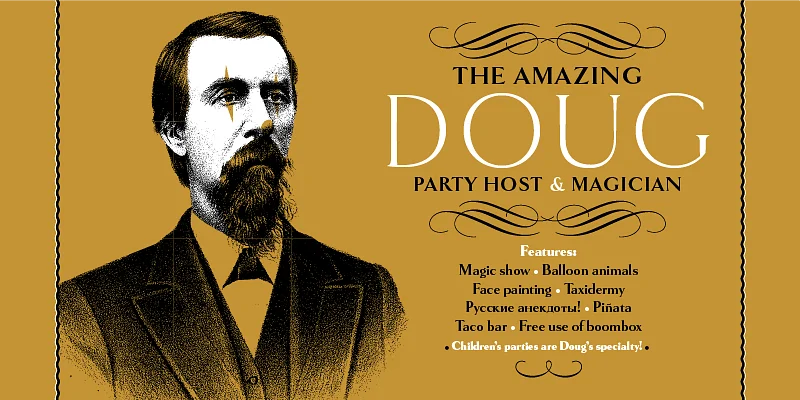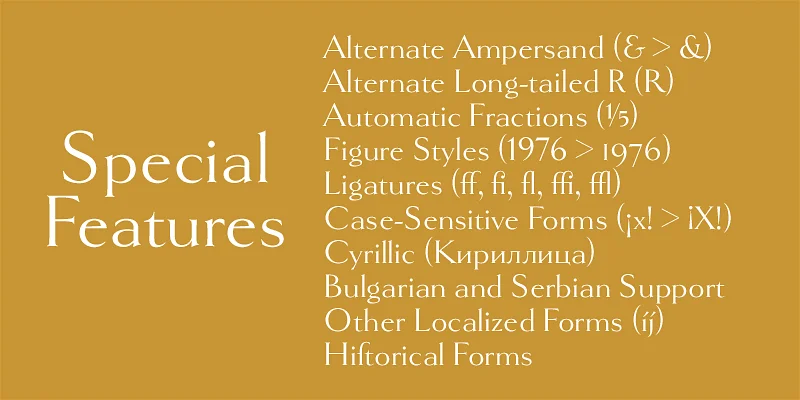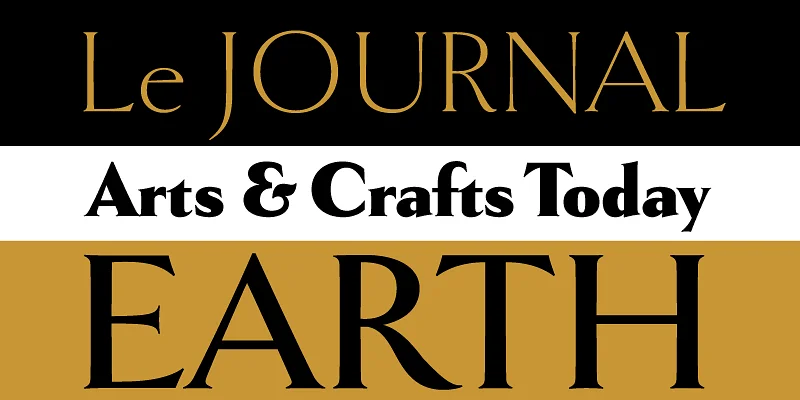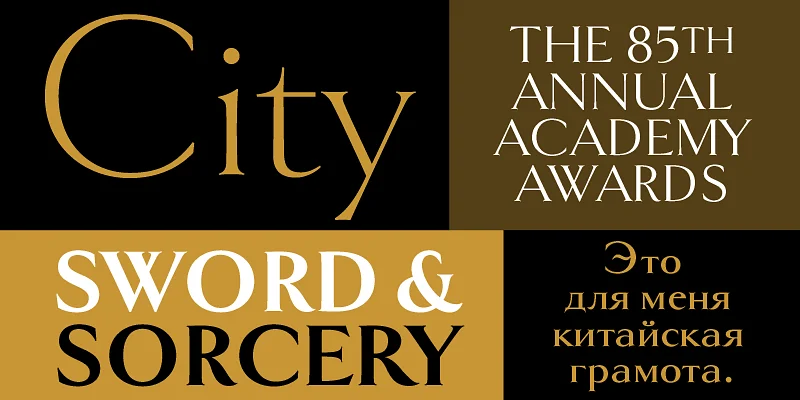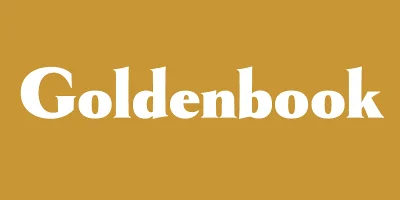
Goldenbook Font
The Goldenbook Font is perfect for luxury publishing projects, prestigious literary collections, golden anniversary celebrations, premium book cover designs, elegant commemorative publications, distinguished memoir layouts, prestigious award ceremonies, upscale literary magazines, exclusive library collections, and treasured family history books.
What makes the Goldenbook Font so exciting is its exquisite fusion of literary elegance with golden luxury that creates the ultimate typeface for precious publications and treasured written works that deserve distinctive presentation. This magnificent typeface features refined letterforms, golden-inspired character proportions, and luxurious design elements that perfectly capture the essence of precious literature and valuable written heritage. The font's golden personality and literary sophistication make it an exceptional choice for premium publishers, luxury brands, and prestigious institutions seeking to communicate literary value, timeless quality, and authentic golden excellence with distinguished visual appeal.
The Goldenbook Font family includes luxury variations and golden alternates, featuring multiple precious weights, literary character options, and golden styling elements. Each variation maintains the signature golden appeal while offering different levels of luxury expression and literary sophistication, giving designers extensive creative possibilities for crafting precious communications and distinguished brand personalities that embody the spirit of golden literary excellence.
This exceptional Goldenbook Font represents the ultimate luxury typography solution for publishers who need authentic golden aesthetics that resonate with literary enthusiasts and luxury book collectors. Whether you're developing premium publishing brands, creating commemorative literary materials, or designing exclusive book collections, this versatile golden font delivers distinguished results that connect with audiences seeking genuine literary luxury and golden quality.
The precious design characteristics of Goldenbook Font showcase masterful luxury typography craftsmanship, with each letter featuring golden construction elements and literary refinement details that enhance its premium credibility and golden authenticity. The font's comprehensive character set includes uppercase and lowercase letters, numerals, luxury punctuation, and golden symbols, ensuring complete functionality for diverse premium projects and international luxury applications.
Specifically engineered for both digital and print luxury applications, this remarkable font maintains its golden character and literary elegance across all sizes and formats. From large-scale luxury displays to detailed premium publications, Goldenbook Font performs exceptionally while preserving its distinctive golden personality and authentic literary luxury appeal.